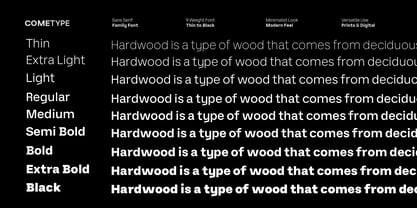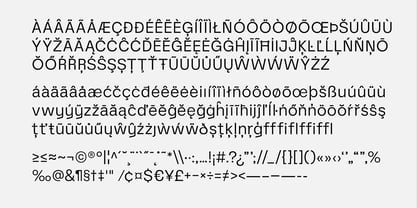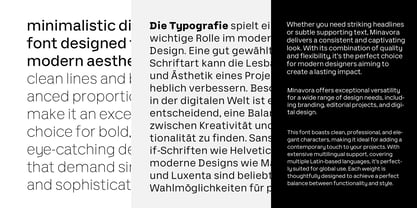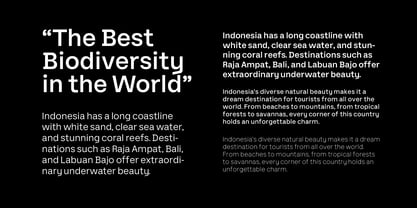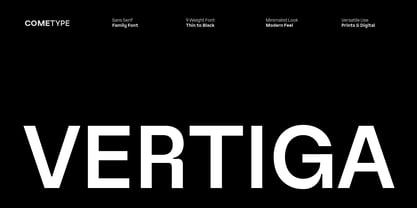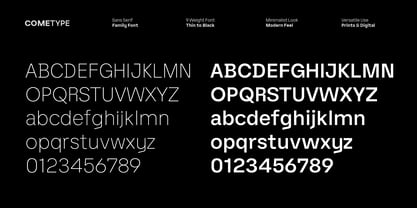
Vertiga
by Come Type
The Vertiga Font Family was designed by abdul artega and published by Come Type. Vertiga contains 9 styles and family package options.
Vertiga is a sleek and modern sans serif font crafted for ultimate versatility. With 9 weights, from delicate Thin to powerful Black, it delivers a perfect blend of elegance and functionality. Its refined curves, precise letterforms, and contemporary appeal make it an exceptional choice for branding, editorial layouts, web typography, and beyond. Whether you're aiming for a clean, minimalist aesthetic or a bold statement, Vertiga effortlessly adapts, bringing sophistication and impact to every design.